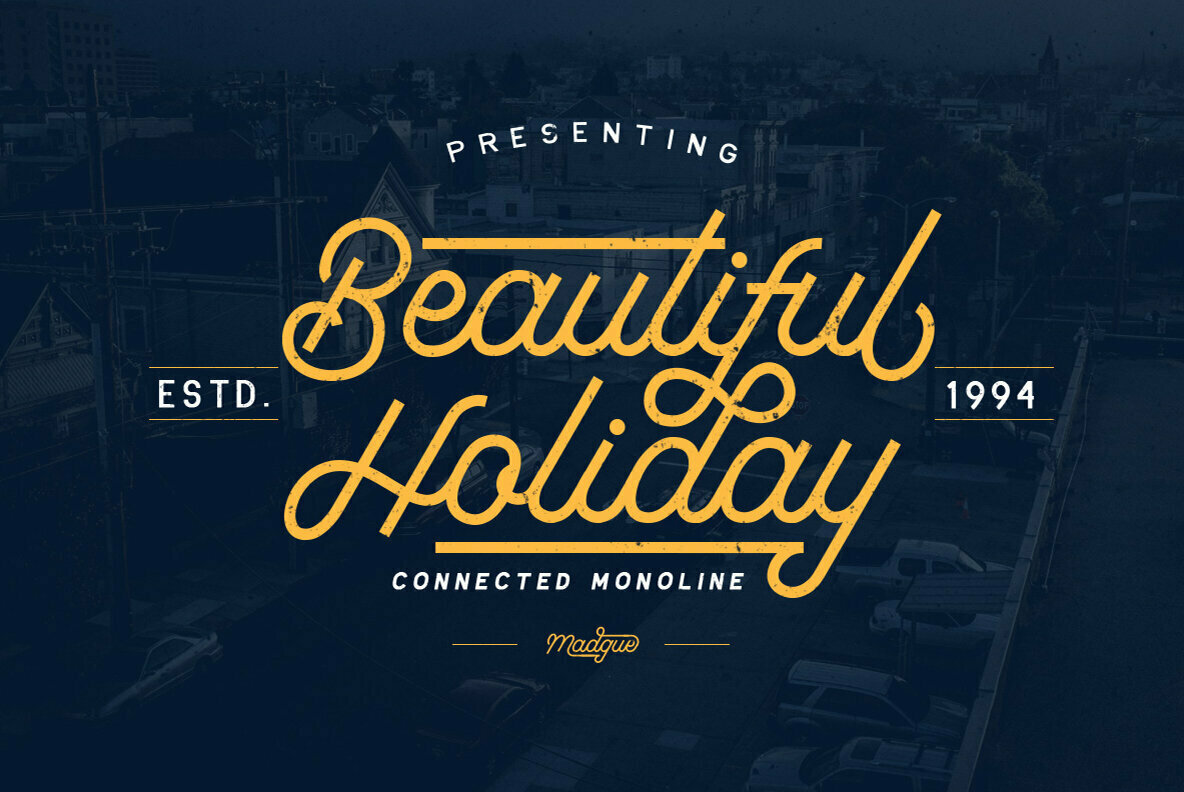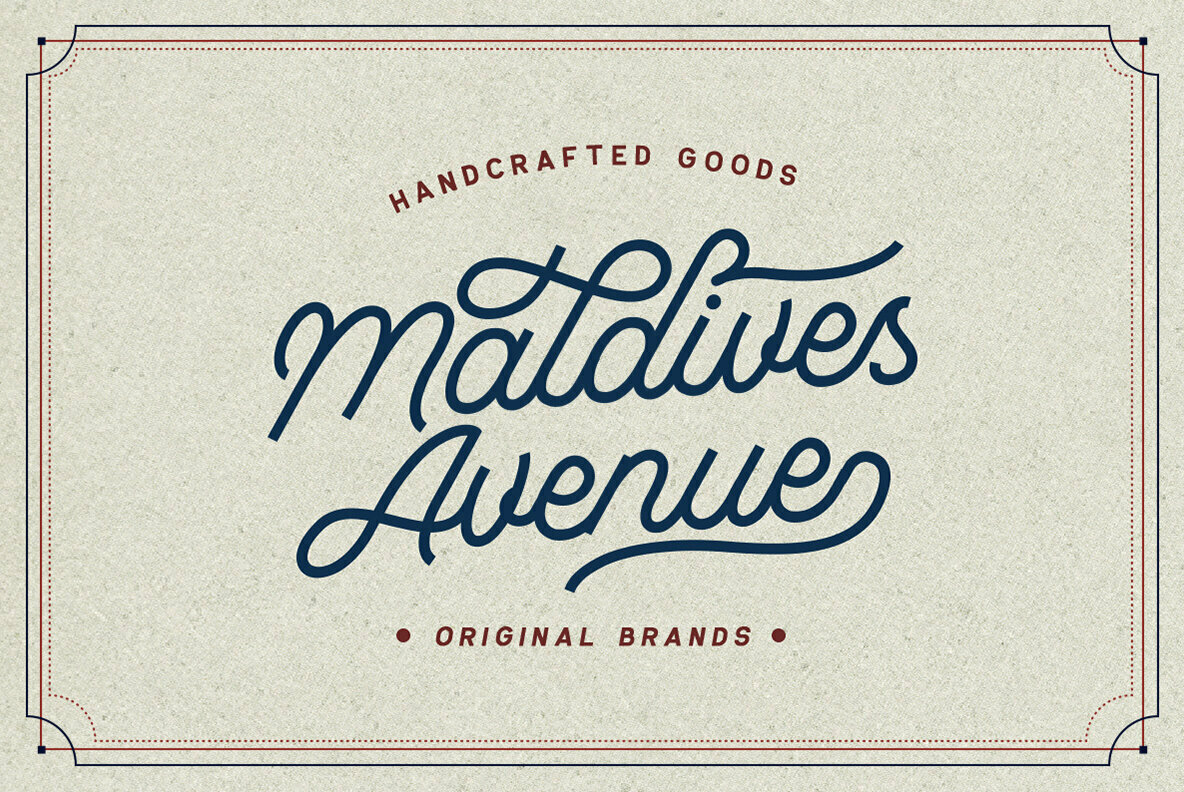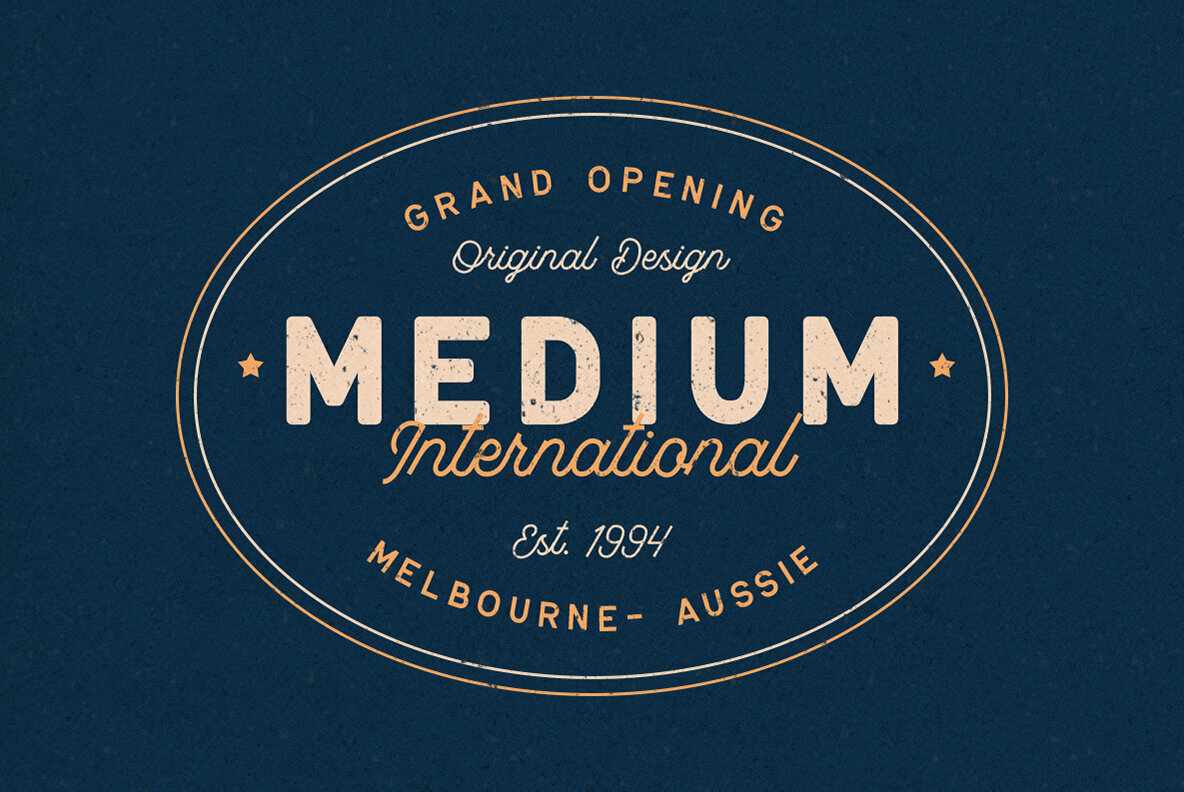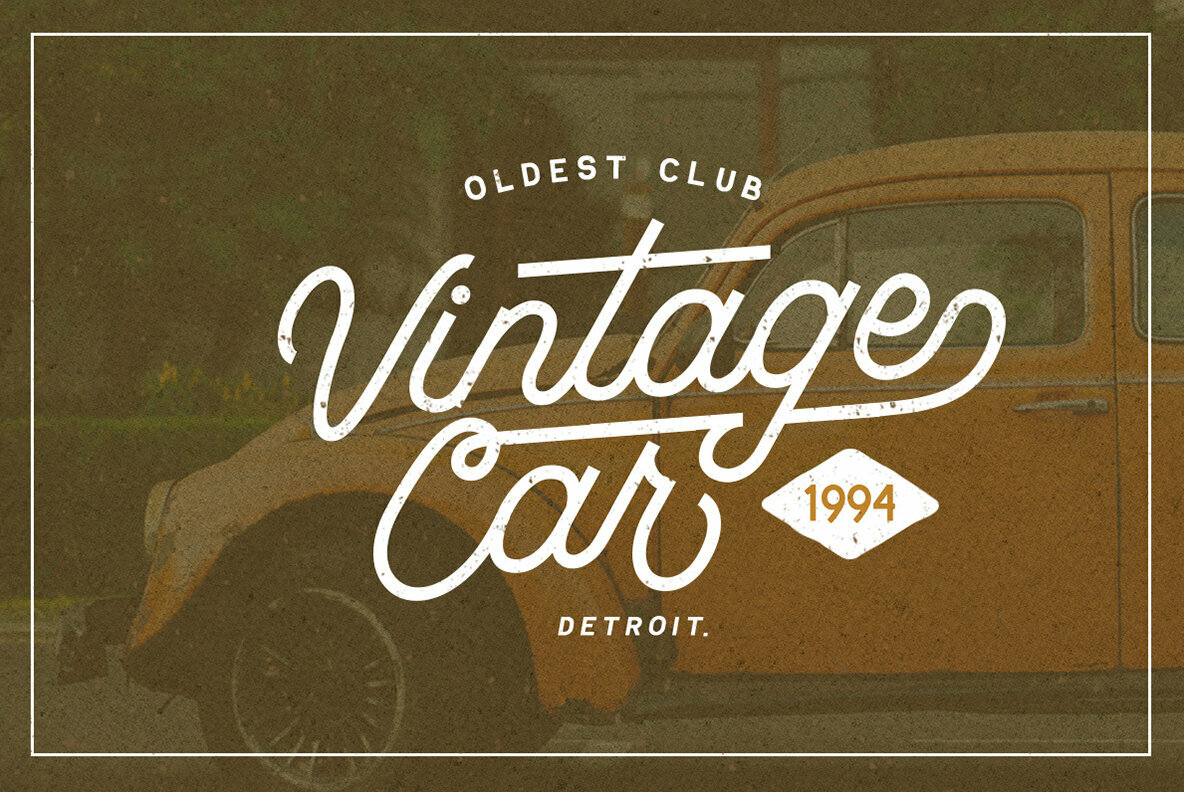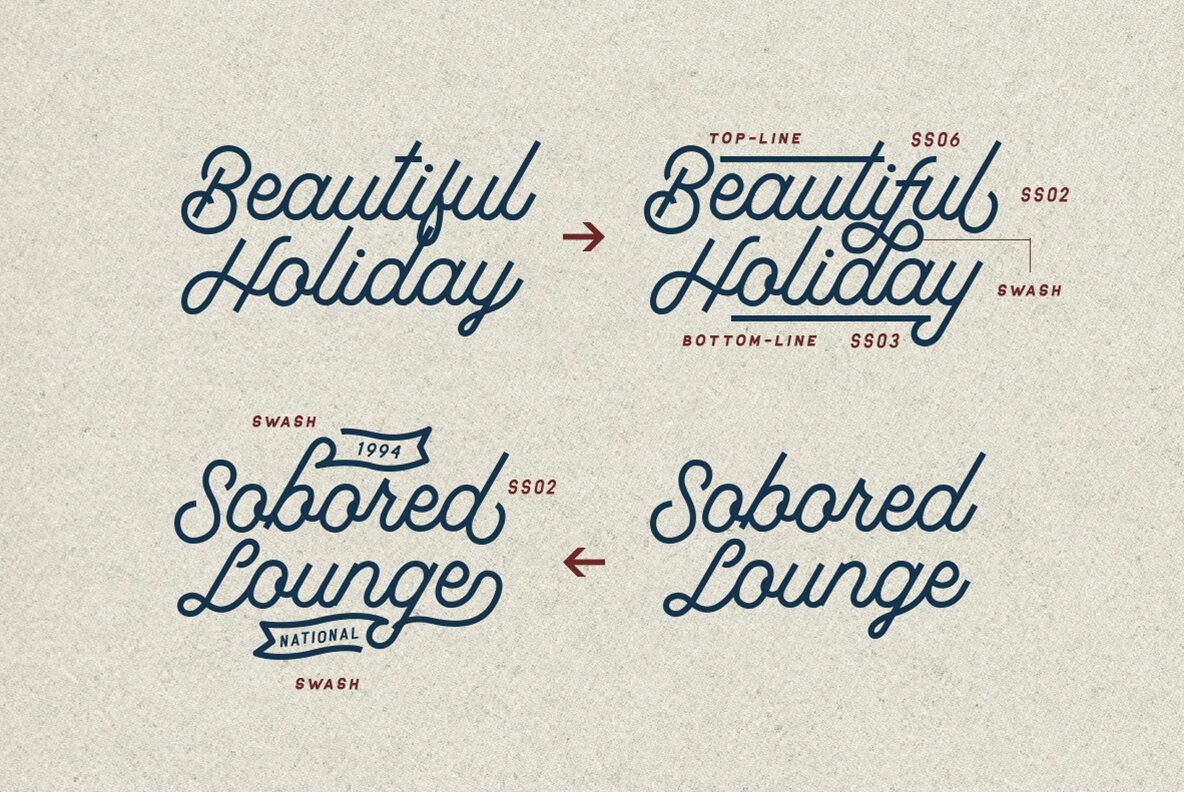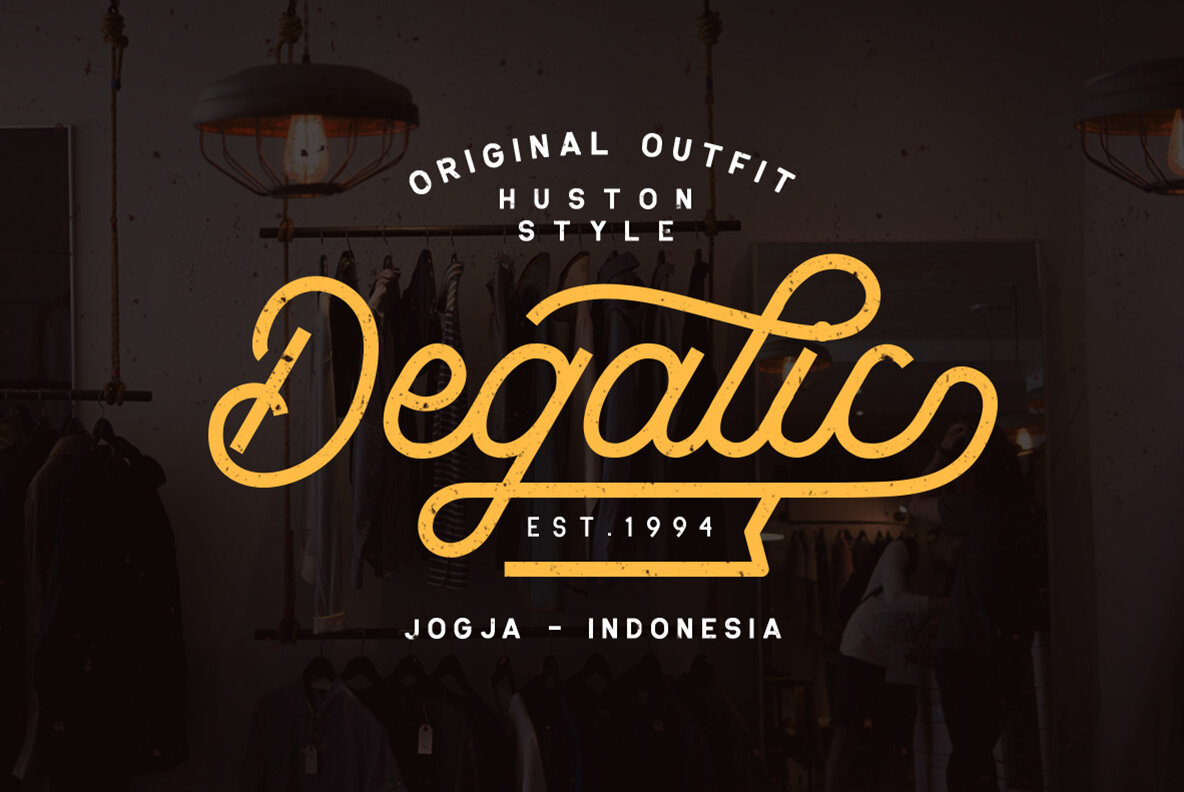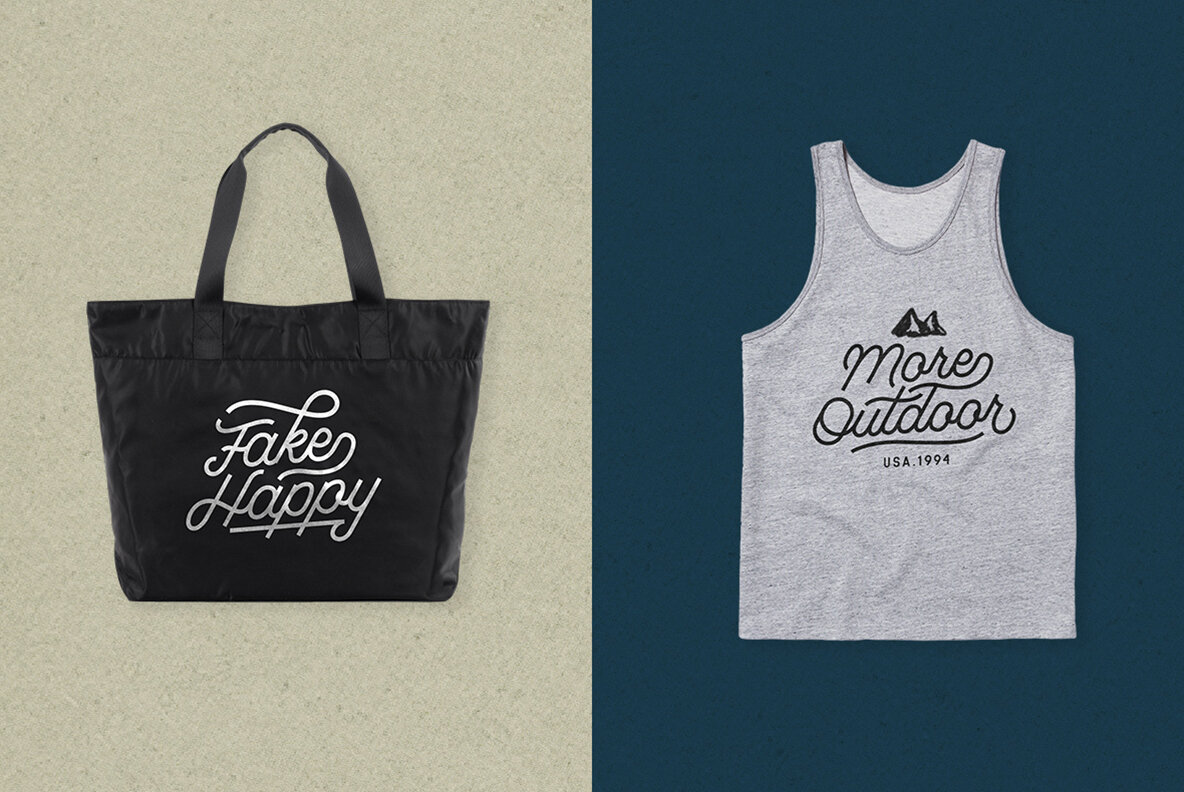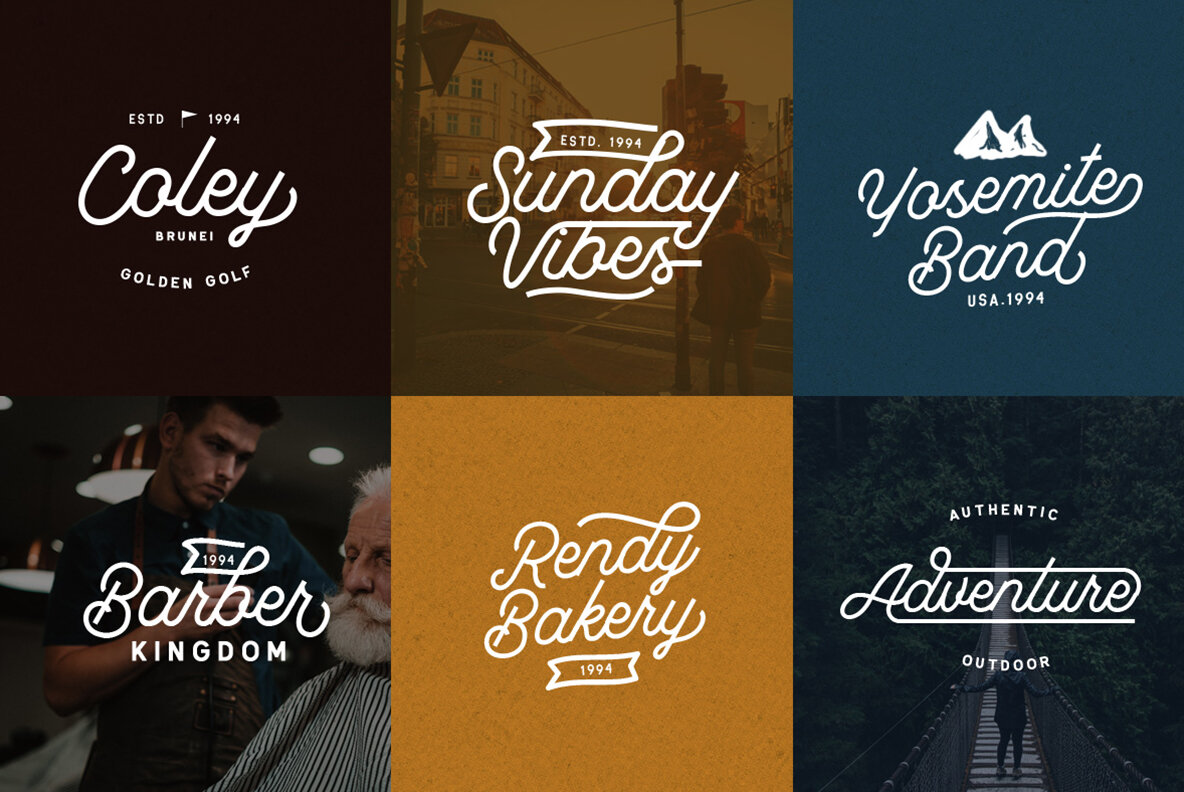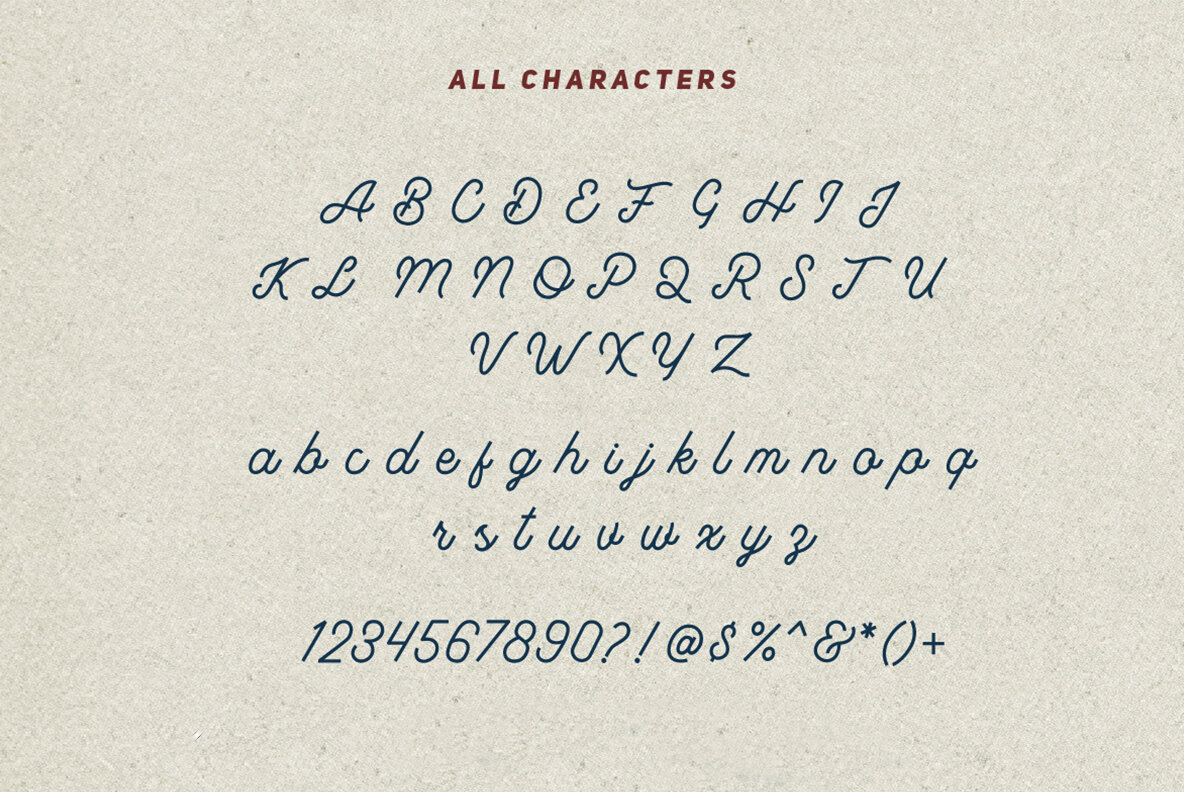
Madgue Font
Madgue is a distinct monoline font designed to make your logos and creative projects truly stand out. This typeface offers a blend of connectivity and style, providing numerous ligatures and stylistic alternates that add a layer of sophistication to your design endeavors. With multilingual support, Madgue ensures versatile applicability across diverse languages and contexts. Included in the package are the Madgue Script, Madgue Swash, swash vectors with instructional guidance, and a pre-made logo example, offering a comprehensive toolkit for your creative needs.Madgue: A Dynamic Monoline Script